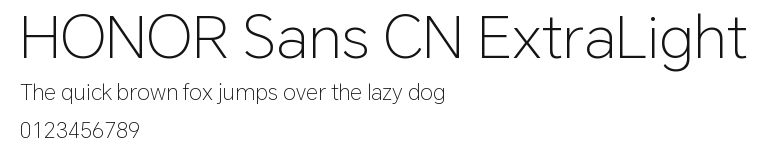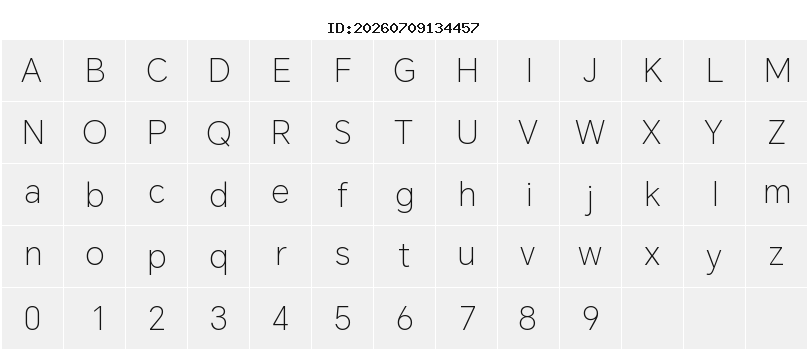
HONOR Sans CN ExtraLight Preview
• Font Name: HONOR Sans CN ExtraLight
• Font ID: Founder:HONOR Sans CN_ExtraLight
• Full Font Name: HONOR Sans CN ExtraLight
• Version: Version 1.04
• PostScript Name: HONORSansCN-ExtraLight
• Character Count: 29000
• Designer: 北京北大方正电子有限公司
• Manufacturer: 北京北大方正电子有限公司
About HONOR Sans CN ExtraLight.ttf
HONOR Sans CN ExtraLight.ttf is a modern, elegant sans-serif font designed for ultimate readability and visual harmony. Perfect for branding, headlines, web design, and print materials.